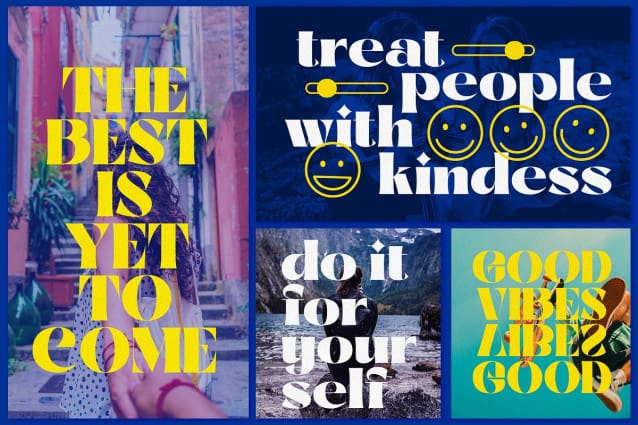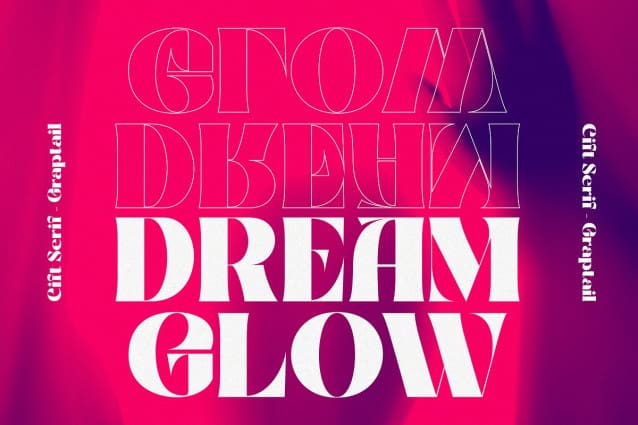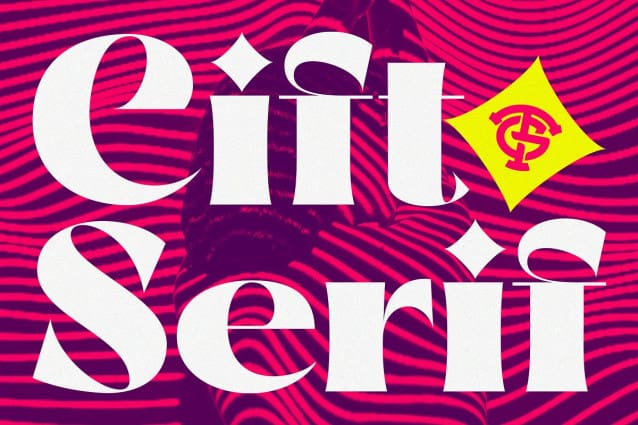
Cift Serif Font
Cift Serif Font is inspired by the work of charming lettering artists with a combination of Old Style Display Bold. Each letter is modified so that the distance, width and weight can give the beauty of the alternates given. A passionate curve gives a touch of beauty to this font.